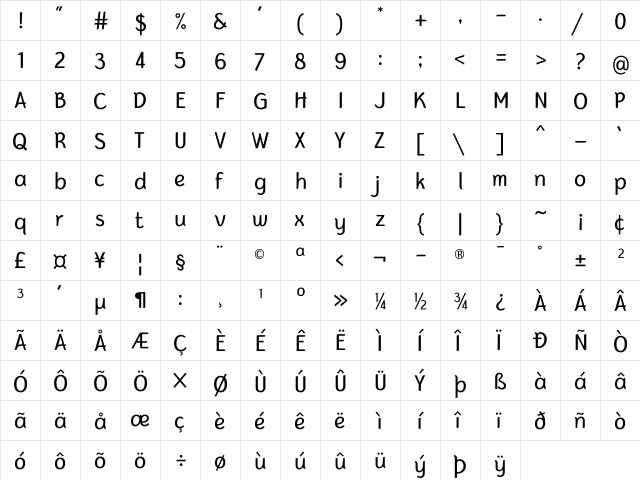
Bertina Regular
Design Context for Bertina Typeface
Bertina offers clean, dependable letterforms without strong stylistic allegiance, making it a practical choice for designers who need flexibility.
Pro Tip: Pair Bertina with a font of contrasting weight or personality to build a more expressive typographic hierarchy.